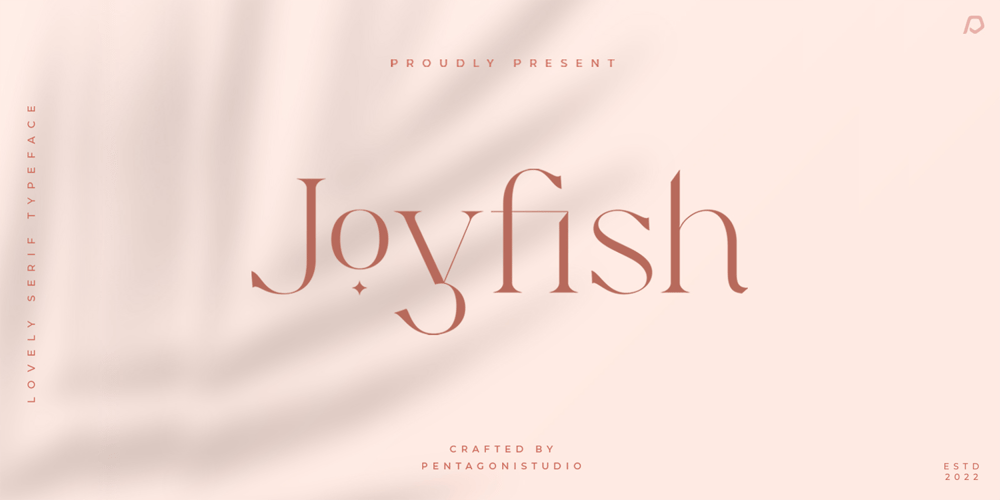
Joyfish Font Family was designed by Burhan Adiatma and published by pentagonistudio. Joyfish contains 1 styles and family package options. Joyfish Is An Lovely Serif Font Inspired By Luxury and Feminine Character.SOFTWARE REQUIREMENTS :Fonts and alternate : No special software required they may be used in any basic program /website apps that allows standard fonts That’s it folks! You can go ahead and get cracking :)Follow My Shop For Upcoming Updates Including Additional Glyphs And Language Support. And Please Message Me If You Want Your Language Included or If There Are Any Features or Glyph Requests, Feel Free to Send me A Message. Have a Good Day !